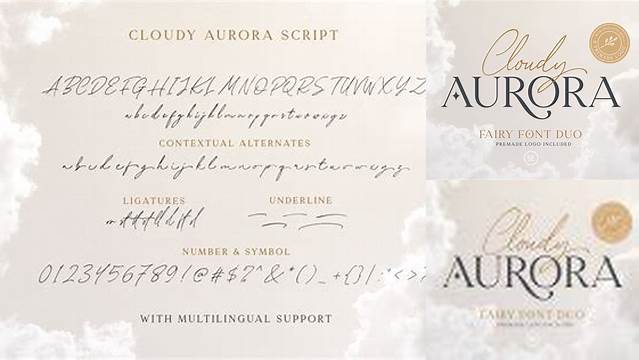
Hey guys! Are you on the hunt for a font that brings a touch of magic and dreamy vibes to your designs? Look no further! The Cloudy Aurora font is here to sprinkle some stardust on your projects. This font is perfect for adding a unique and ethereal feel to anything from logos and branding to social media graphics and even wedding invitations. In this article, we’ll dive deep into everything you need to know about the Cloudy Aurora font, where to find it for free, and how to make the most of it in your designs. So, buckle up and let’s get started!
What is Cloudy Aurora Font?
The Cloudy Aurora font is a stunning typeface that captures the mesmerizing beauty of the aurora borealis. Imagine the swirling colors and ethereal glow of the Northern Lights – that's what this font embodies. It often features elegant curves, a slightly whimsical feel, and a touch of modern sophistication. This makes it super versatile for a wide range of projects. Whether you’re aiming for a dreamy, romantic aesthetic or a modern, artistic vibe, the Cloudy Aurora font can help you achieve it. Think about using it for your next creative project to add that extra oomph!
Why Choose Cloudy Aurora Font?
So, why should you choose the Cloudy Aurora font over the countless other fonts out there? Well, for starters, it’s unique! It stands out from the crowd with its distinctive style, making your designs instantly recognizable. The elegant and slightly whimsical nature of the font adds a touch of sophistication and charm, perfect for projects that need a bit of magic. Plus, it's incredibly versatile. Whether you’re designing a logo, creating social media graphics, or working on a wedding invitation, the Cloudy Aurora font fits the bill. And let’s not forget, finding a high-quality font for free is always a win! So, if you’re looking for a font that’s both beautiful and practical, Cloudy Aurora might just be your new best friend.
Using Cloudy Aurora Font in Graphic Design
The Cloudy Aurora font is a gem when it comes to graphic design. Its elegant and whimsical style makes it perfect for a variety of projects. Think about using it in logos and branding materials to give your brand a sophisticated yet approachable feel. It’s also fantastic for social media graphics, helping your posts stand out with a touch of magic. If you’re designing invitations, especially for weddings or special events, Cloudy Aurora can add a dreamy and romantic vibe. Experiment with different sizes and weights to see what works best for your project, and don’t be afraid to pair it with other fonts for a balanced look. The possibilities are endless!
Best Font Pairings with Cloudy Aurora
Choosing the right font pairing can really elevate your design. The Cloudy Aurora font, with its unique and elegant style, works well with a variety of other fonts. For a classic and clean look, try pairing it with a simple sans-serif font like Open Sans or Montserrat. This creates a nice contrast and makes your design easy to read. If you’re going for a more modern and sophisticated vibe, consider pairing Cloudy Aurora with a serif font like Playfair Display. This combination can add a touch of elegance and formality. Ultimately, the best pairing depends on the overall aesthetic you’re aiming for, so don’t be afraid to experiment and see what looks best!
Cloudy Aurora Font for Logos and Branding
If you're looking to create a brand identity that's both elegant and memorable, the Cloudy Aurora font is an excellent choice. Its unique, slightly whimsical style can help your logo stand out from the crowd, giving your brand a distinct personality. Think about how the font's flowing lines and ethereal feel can convey a sense of creativity, sophistication, or even a touch of magic, depending on how you use it. When incorporating Cloudy Aurora into your branding, consider how it aligns with your brand's values and target audience. It might be perfect for businesses in the beauty, fashion, or creative industries, but it's versatile enough to work in other sectors too.
Cloudy Aurora Font for Social Media Graphics
In the fast-paced world of social media, grabbing attention is key. The Cloudy Aurora font can be a game-changer for your social media graphics, helping your posts stand out in a sea of content. Its elegant and eye-catching style makes it perfect for headlines, captions, and even watermarks. Imagine using Cloudy Aurora in your Instagram stories or Facebook posts to add a touch of sophistication and visual interest. It's especially effective for creating quotes, announcements, or promotional graphics. Just make sure to use it sparingly and pair it with a more readable font for body text to keep things balanced and easy on the eyes.
Cloudy Aurora Font for Wedding Invitations
Planning a wedding? The Cloudy Aurora font can add a touch of romance and elegance to your invitations. Its delicate, flowing lines and slightly whimsical feel make it a perfect fit for wedding-related designs. Think about using it for the names of the bride and groom, important dates, or even headings and subheadings on your invitations. To create a cohesive look, you can also use Cloudy Aurora in other wedding materials, like save-the-dates, programs, and thank-you cards. Pair it with a classic serif font for a balanced and sophisticated aesthetic, and you'll have invitations that are sure to impress your guests.
Cloudy Aurora Font: A Recap
Alright, let’s do a quick recap of everything we’ve covered about the Cloudy Aurora font. This elegant and slightly whimsical font is perfect for adding a touch of magic to your designs. It’s great for logos, branding, social media graphics, wedding invitations, and more. Remember to download it from a reputable source and check the license before using it. Pair it with a clean and readable font for body text, and don’t overuse it. Pay attention to kerning, leading, and tracking, and experiment with different color combinations. With these tips in mind, you’ll be able to make the Cloudy Aurora font shine in all your projects. Happy designing!